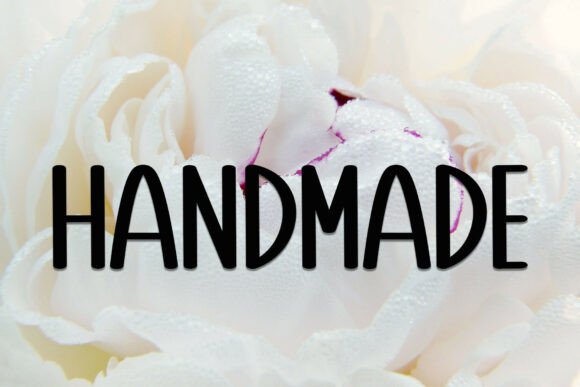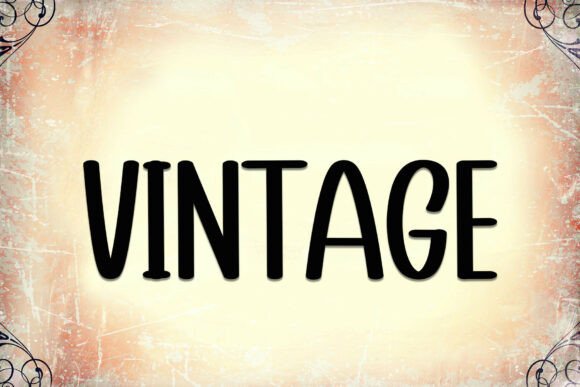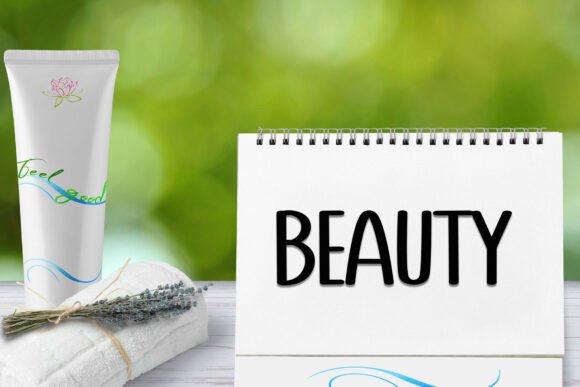
Introduction to Labuburainbow Font
The Labubu Rainbow font is a playful handwritten display typeface that brings a lively, casual charm to any design.
Its tall, rounded letterforms with smooth curves and consistent stroke weight create a friendly and approachable look, while its slightly elongated shapes add a whimsical, modern edge Perfect for headlines, posters, branding, or social media graphics, this font adapts effortlessly to a variety of creative projects.